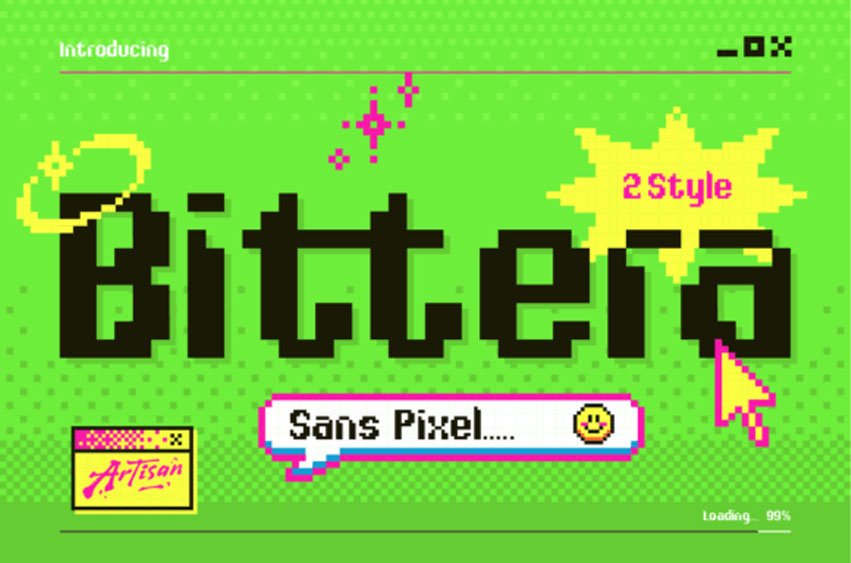
Bittera Regular Font Power up your designs with Bittera, the font engineered to bring retro 8-bit magic to your projects with a fresh twist. Bittera comes in two distinct styles for maximum creative flexibility: Regular offers that clean, classic pixel look, while Rounded provides a softer, more playful vibe.
This versatile font is perfect for game titles, striking YouTube thumbnails, pixel art, and any design that needs a nostalgic arcade feel. Bittera is your essential tool for a truly authentic aesthetic. Press start and level up your typography!